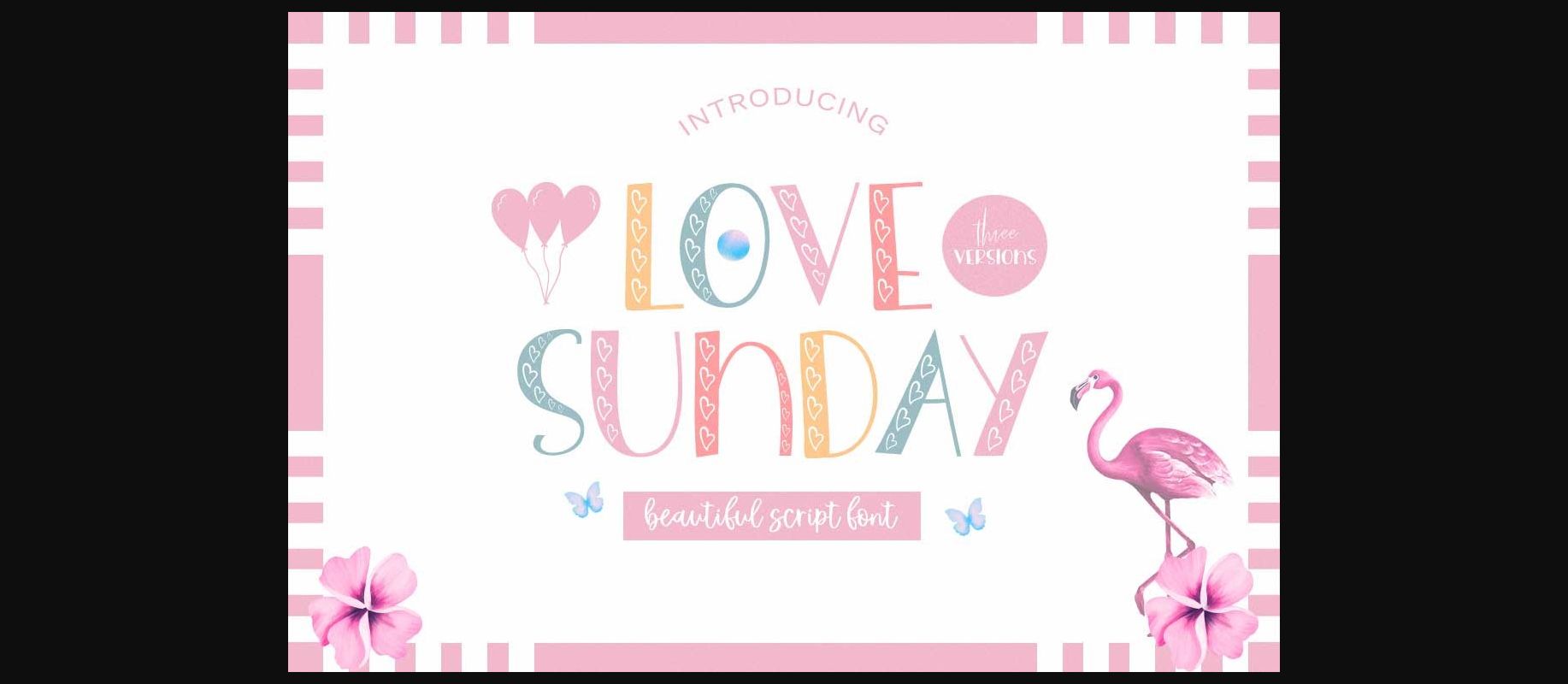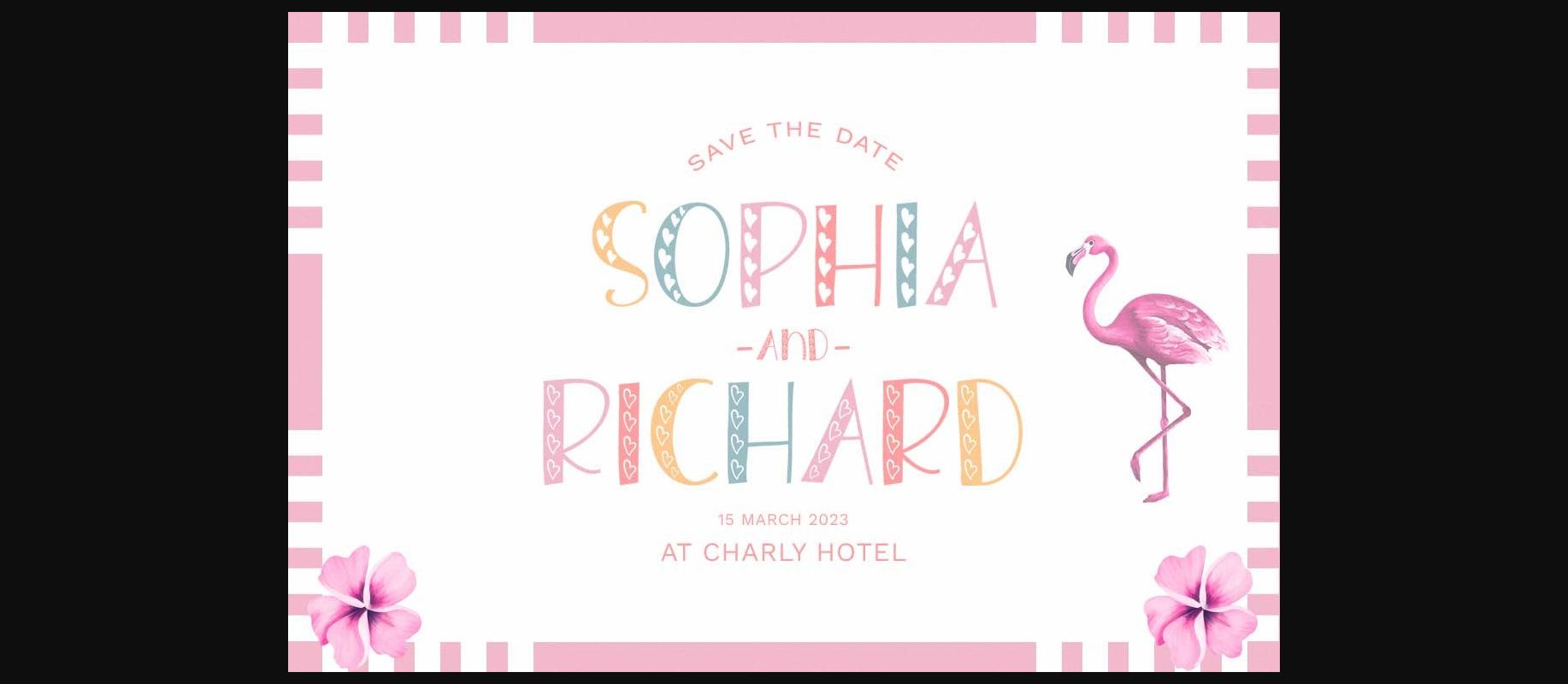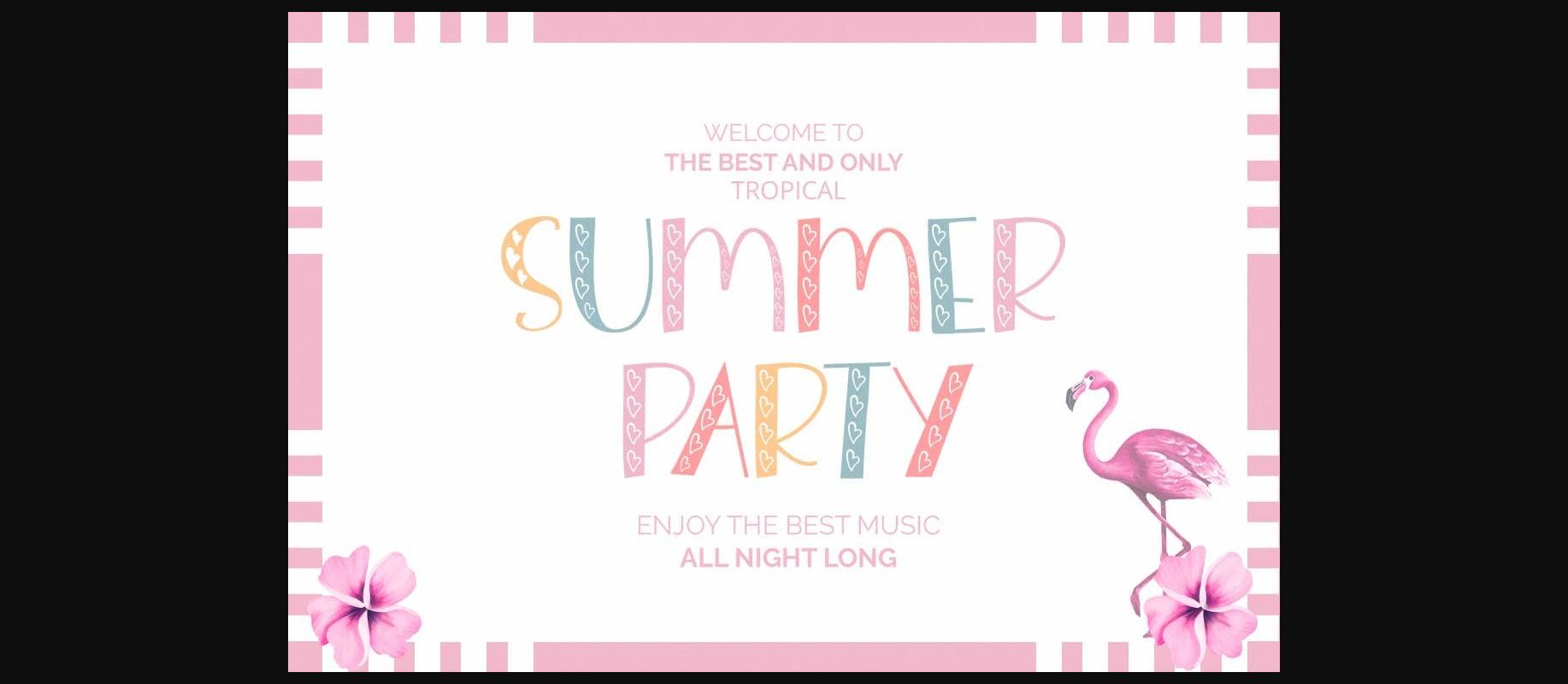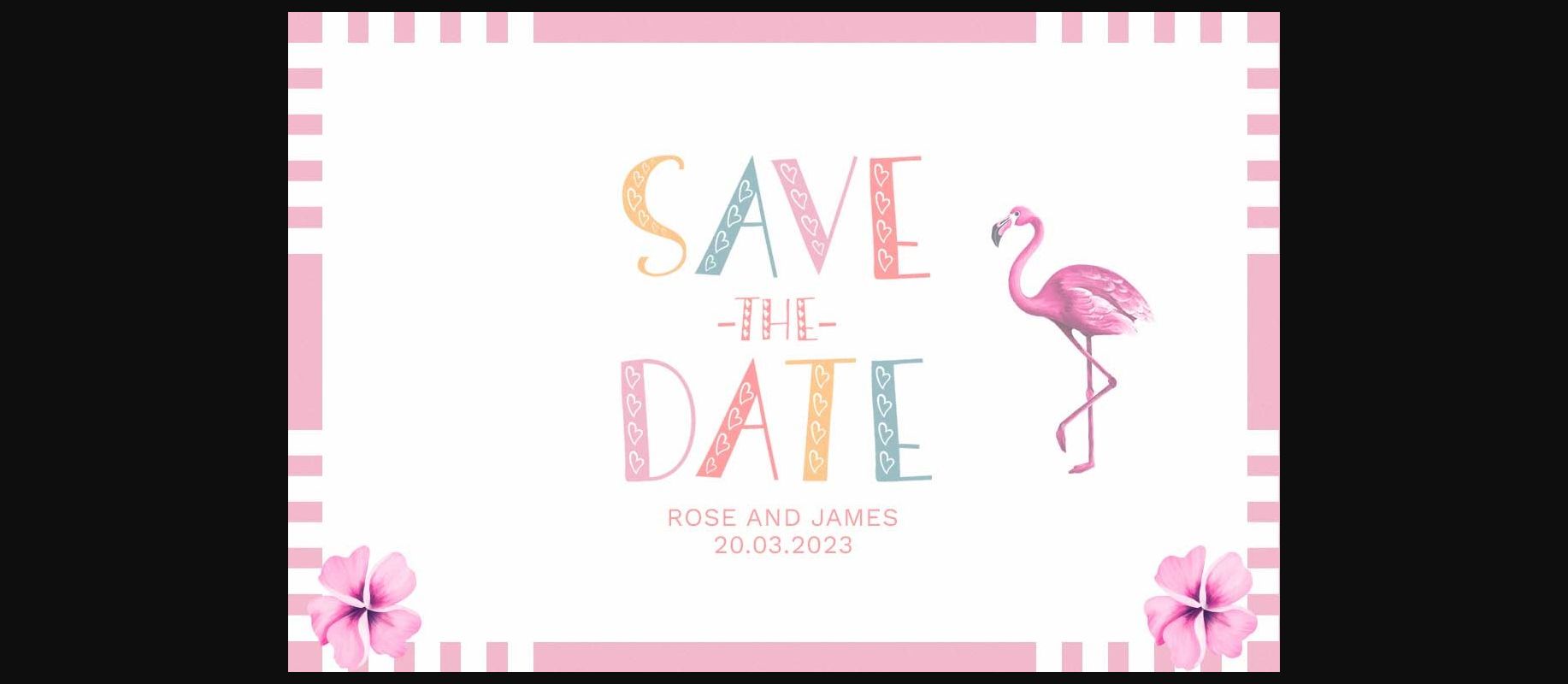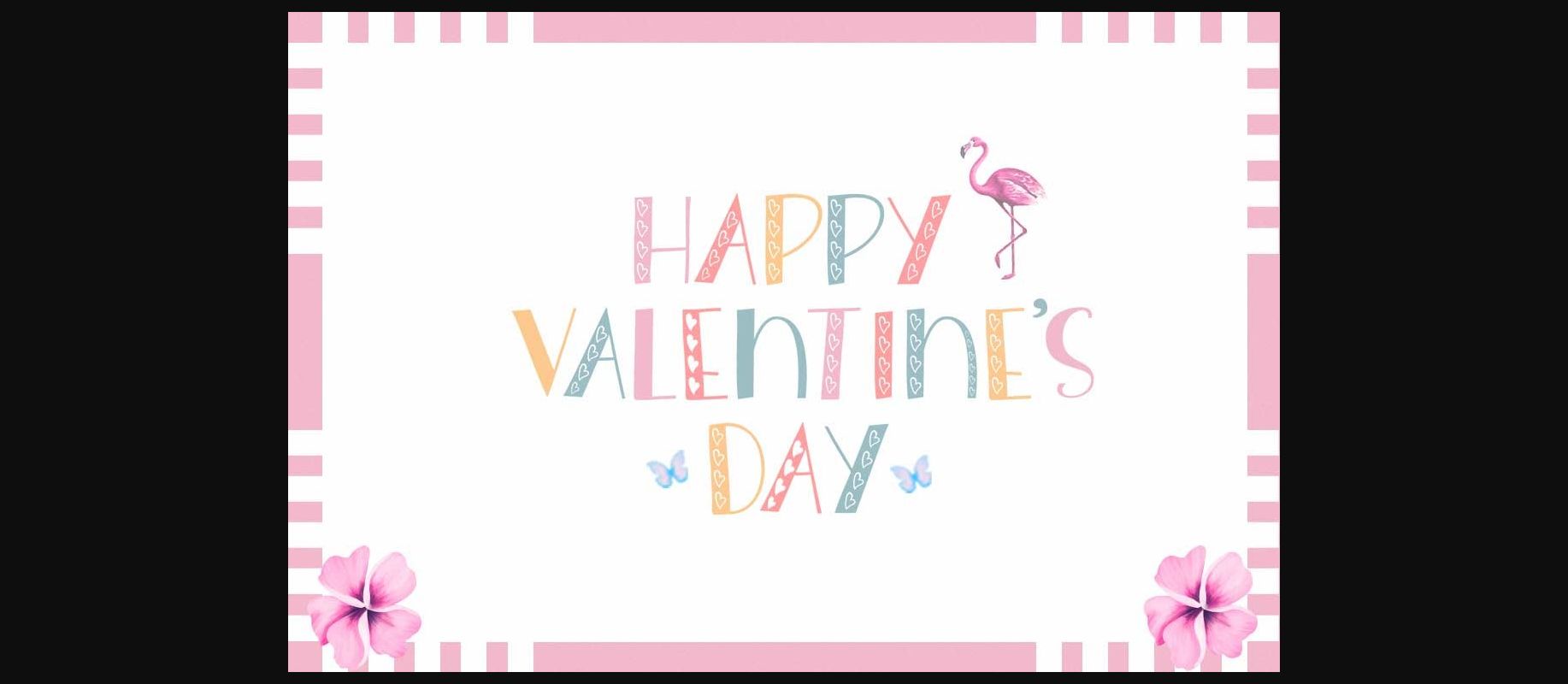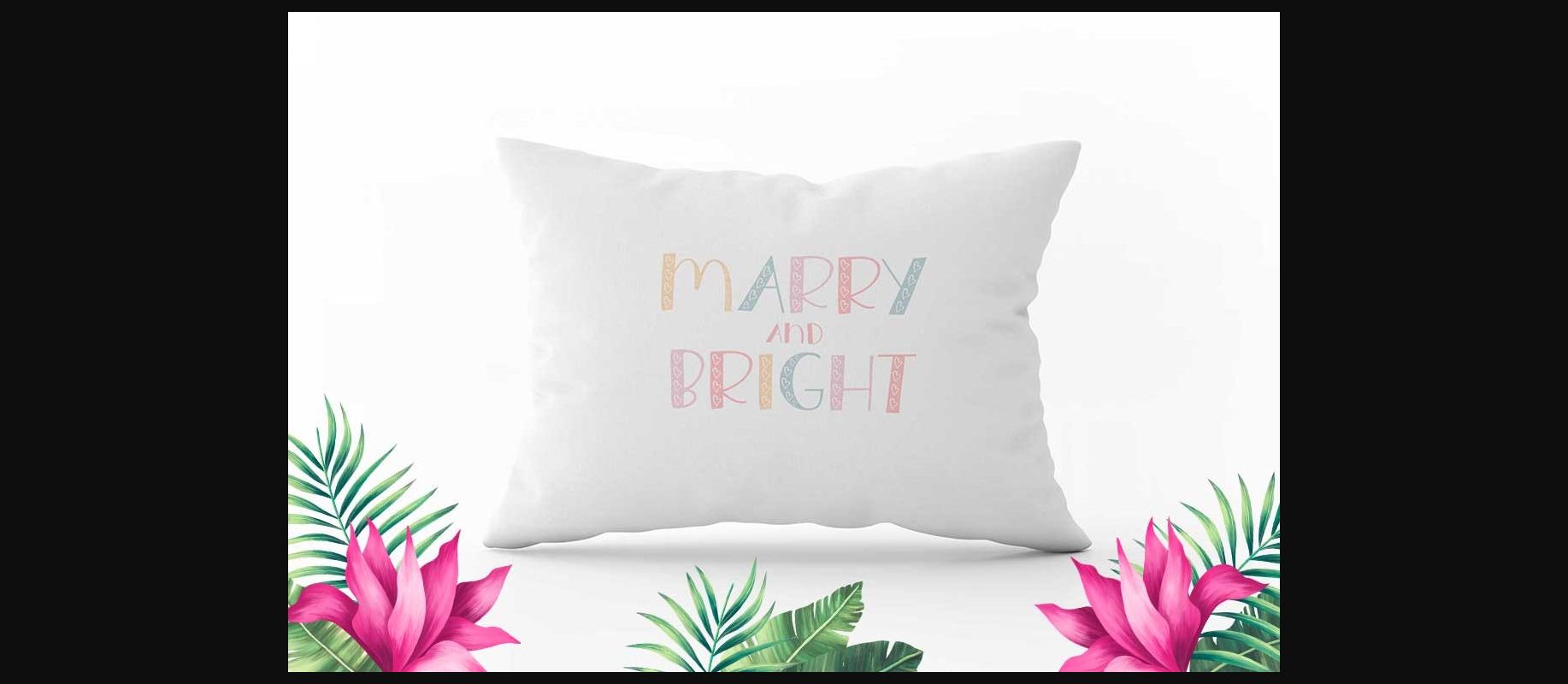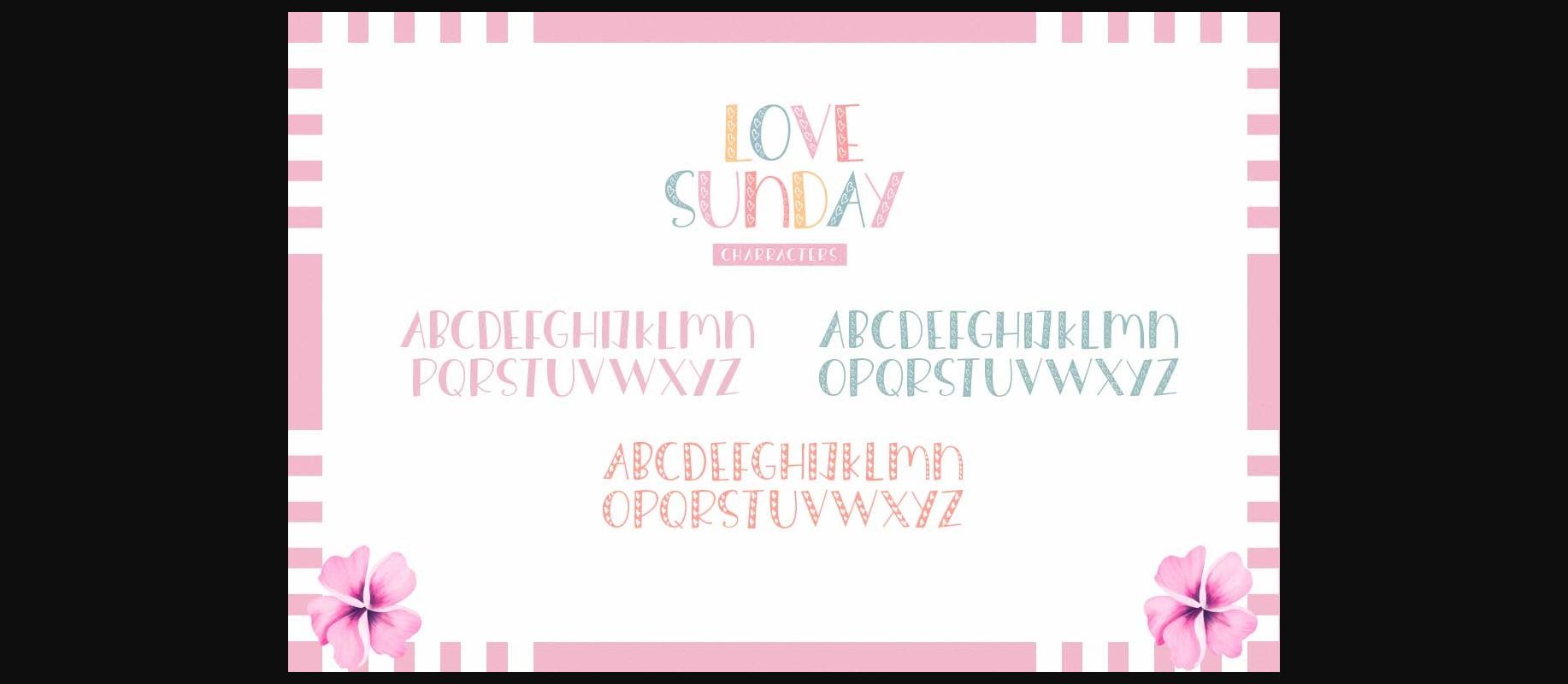
Hello Sunday Font
About Hello Sunday Font
Love Sunday is a beautiful decorative font with a heart shape combination in the middle of the letters.
This font will be your go-to font for digital design, crafts, presentations, or creating greeting cards, and many other design projects.